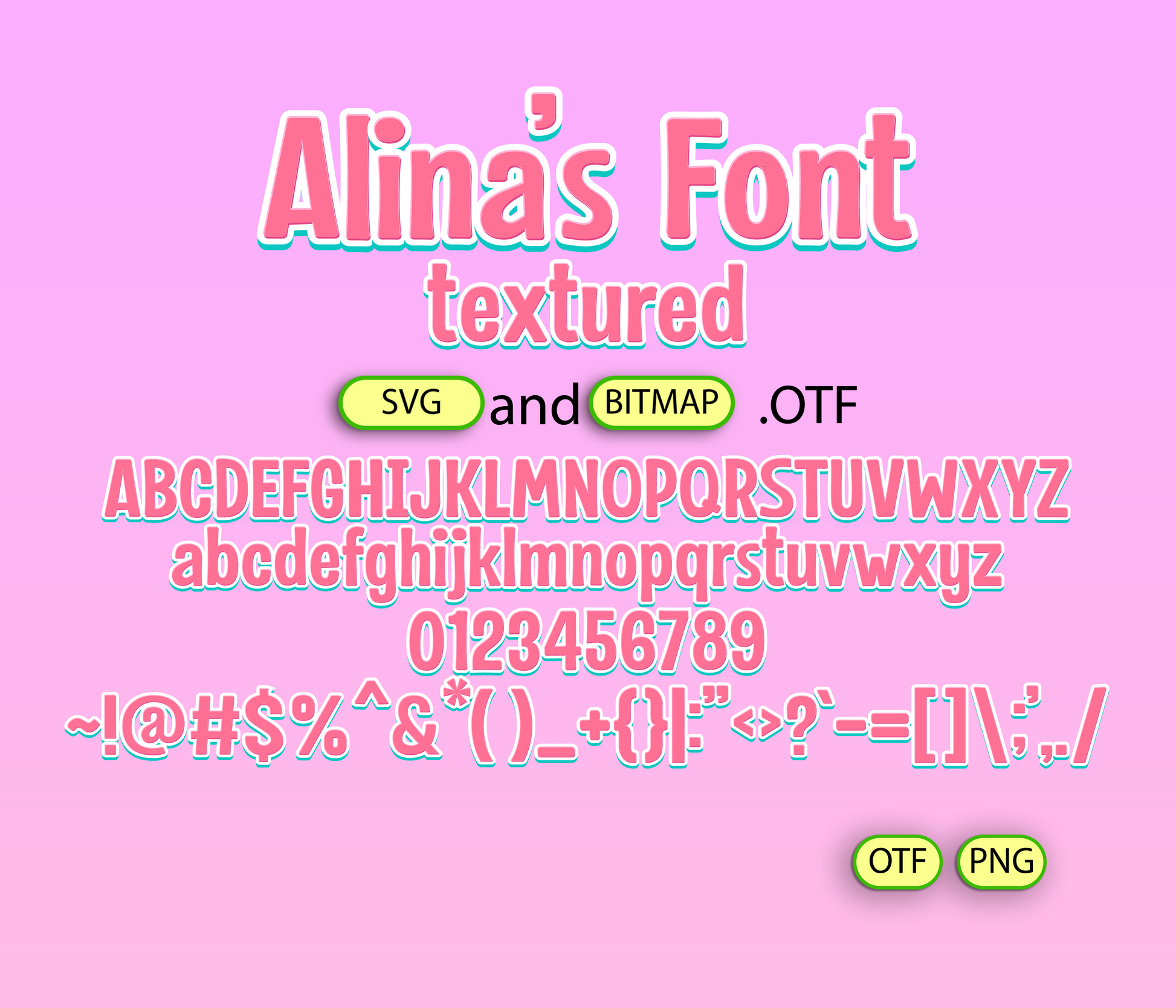
Plush Color Typography for Baby Shower Font Textured
Step into the adorable world of celebration-ready companions with our Plush Color Typography for Baby Shower, capturing the essence of squishy plush toys and ultra-soft fluffy collectibles. Perfect for baby shower planners, expectant parents, party designers, and creative professionals, this font brings the cuddly, cheerful spirit of marshmallow-soft characters to your projects. Create heartwarming invitations, merchandise, or digital content with the gentle energy of lovable plushie companions.
Soft Fluffy Font for Baby Celebration Design & Nursery Projects
Our Plush Color Typography for Baby Shower features rounded, pillowy letterforms and soft bubble-like curves reflecting the world of ultra-plush toys.
Our font pays tribute to the iconic world of soft plush toys and kawaii design, empowering your projects with its gentle and huggable spirit. Whether crafting party materials, designing baby celebration products, or adding a cuddly touch to personal projects, this font communicates the heartwarming essence of new beginnings. Ready to inject fluffy charm into your baby shower creations? This font is your key to adorable, impactful design.